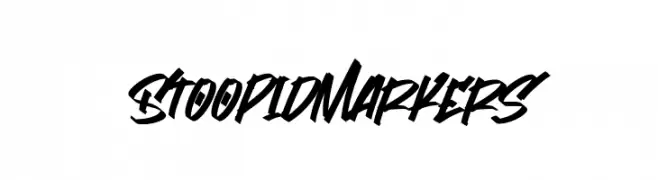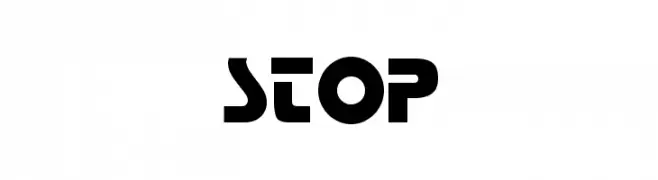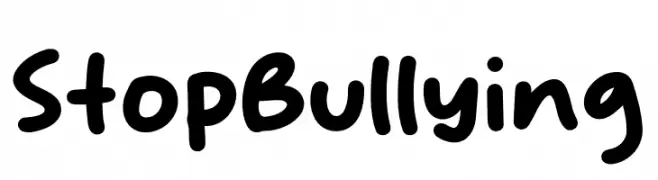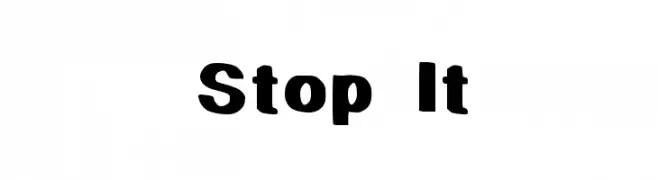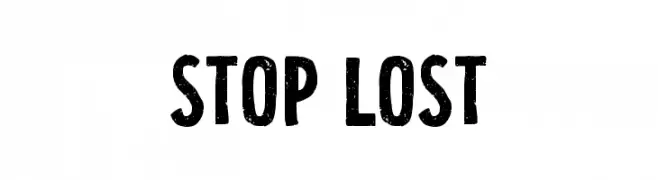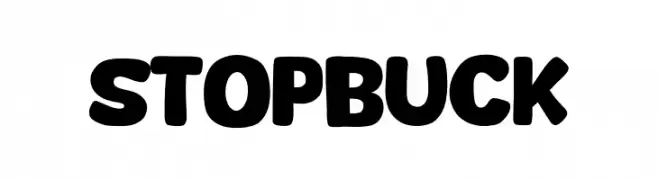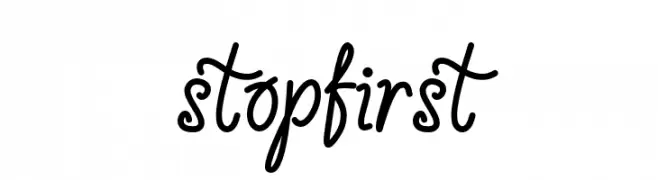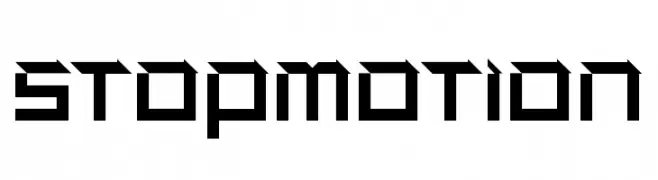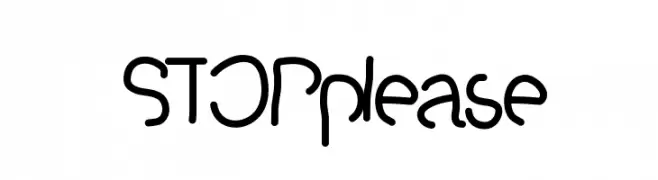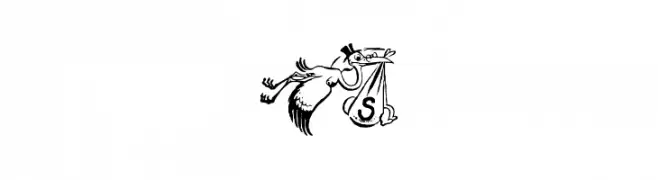
A playful, bold font with interconnected, rounded characters and high contrast.
A bold, energetic font with dynamic marker-like strokes.
A bold, geometric font with a futuristic and modern design.
A playful, bold font with rounded, hand-drawn characters.
A bold, playful handwritten font with rounded edges and a casual style.
A bold, thick font with rounded edges, perfect for impactful headlines.
A bold, distressed font with a vintage, textured appearance.
A dynamic, expressive handwritten font with fluid, flowing letterforms.
A bold, rounded font with a playful and friendly style.
A playful and energetic script font with flowing, connected letterforms.
A bold, geometric font with a futuristic and angular design.
A playful, handwritten font with rounded edges and a whimsical style.
A bold, slanted, monospaced font with a modern and dynamic style.
A bold, playful handwritten font with rounded edges and a casual style.
A modern, geometric sans-serif font with clean lines and balanced proportions.
A modern, geometric sans-serif font with clean lines and a slightly condensed style.
A bold, modern sans-serif font with clean lines and strong readability.
A bold, italicized modern sans-serif font with a dynamic and clean appearance.
A bold, modern sans-serif font with strong geometric shapes.
A bold, italic sans-serif font with a modern and dynamic style.
A modern, extra light sans-serif font with clean lines and geometric shapes.
A modern, extra light sans-serif italic font with a sleek and elegant style.
A modern sans-serif italic font with a sleek and dynamic style.
A clean, modern sans-serif font with light weight and balanced proportions.
A modern, light, italic sans-serif font with sleek, fluid lines.
A modern, geometric sans-serif font with clean lines and uniform strokes.
A modern, medium-weight sans-serif font with an italic style, offering clarity and versatility.
A modern, semi-bold sans-serif font with clean lines and excellent readability.
A modern, semi-bold, italic sans-serif font with medium contrast and normal spacing.
A whimsical, hand-drawn font with elongated, narrow characters and playful strokes.